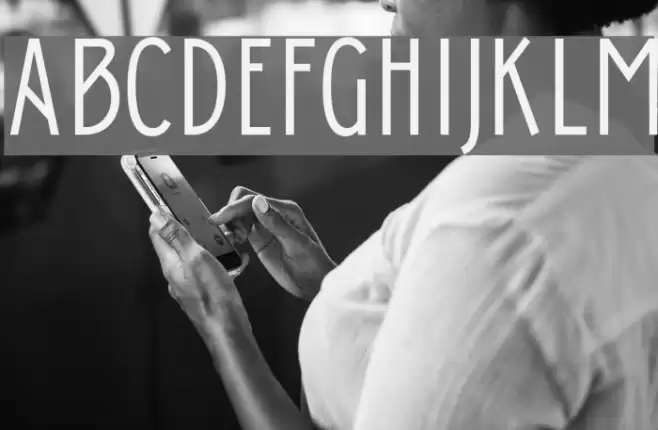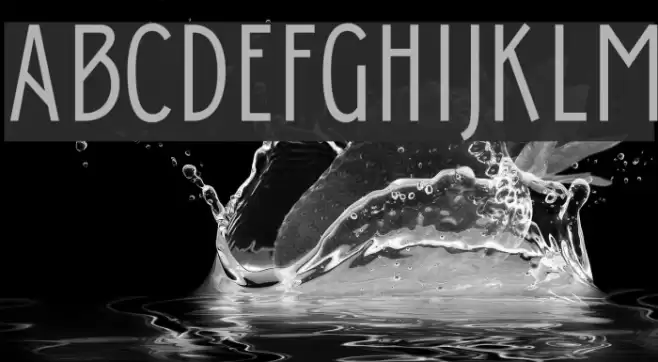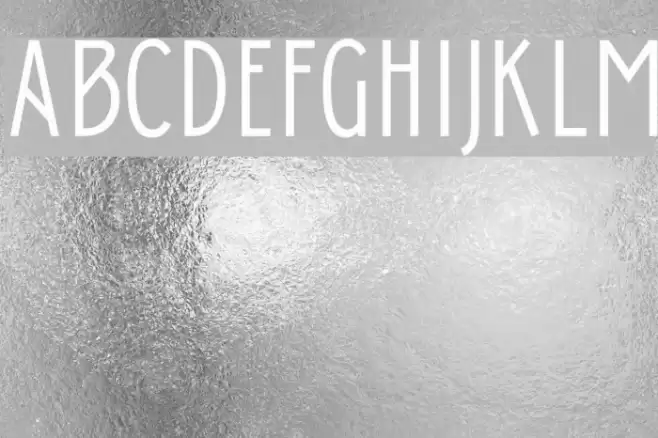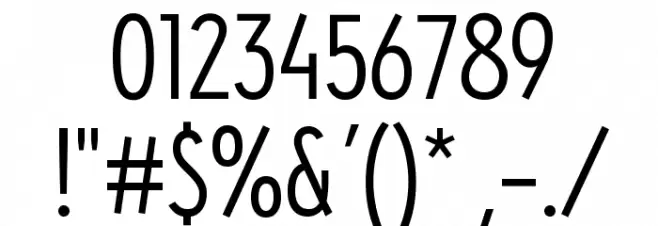
Donau Uppercase Neue Font
Donau Uppercase Neue Description
This font features a modern and geometric design with clean lines and a distinctively tall and narrow appearance. The uppercase letters are uniform in height, creating a cohesive and structured look. The numerals and special characters maintain the same geometric style, ensuring consistency across all glyphs. The font's simplicity and clarity make it highly legible, even at smaller sizes. Its contemporary aesthetic is suitable for a variety of design applications, offering a sleek and professional appearance.
A modern, geometric font with tall, narrow letters and clean lines from Uncategorized fonts.
- Proposed Projects: Ideal for branding, editorial design, advertising, and digital interfaces where a modern and professional look is desired.
- Use Case: Headlines, Logos, Digital interfaces